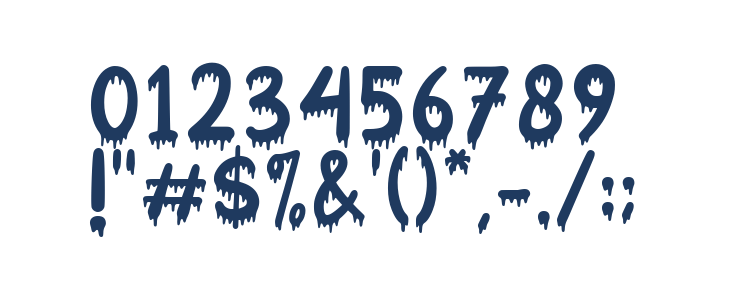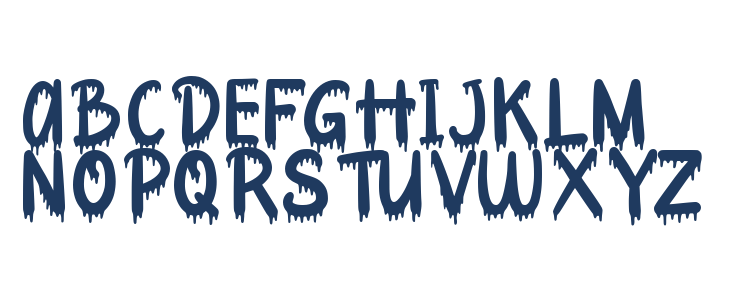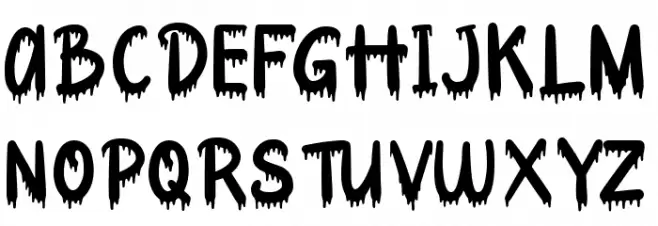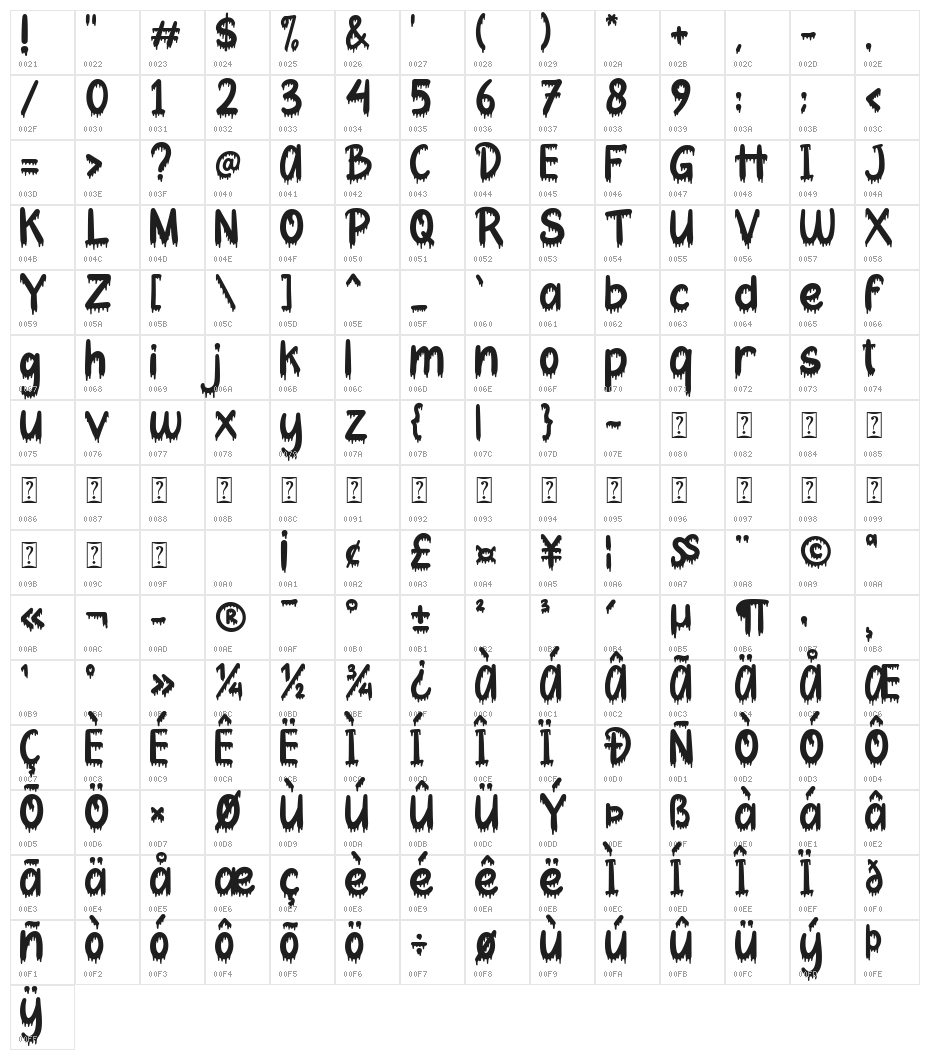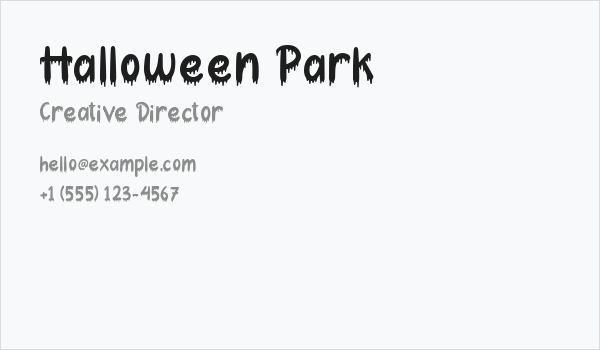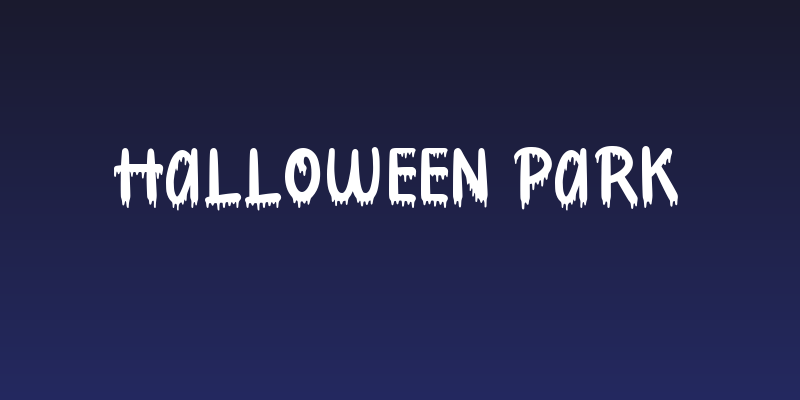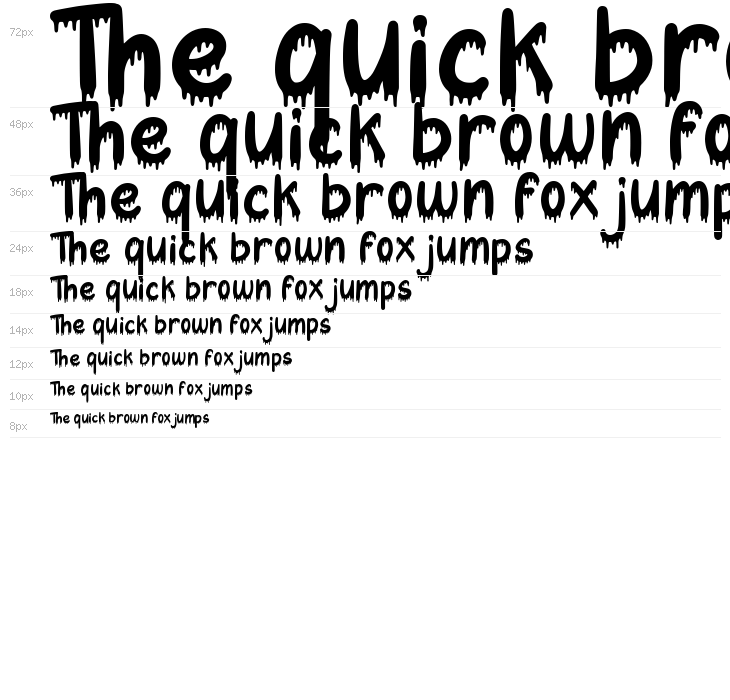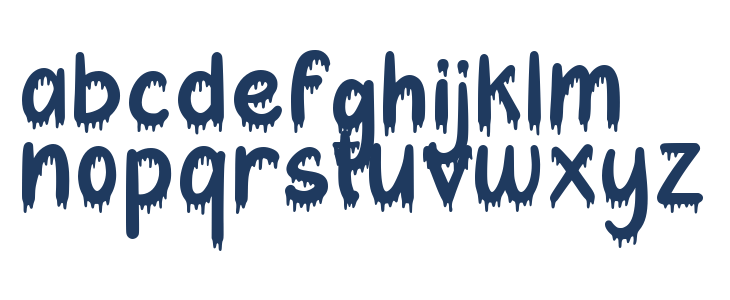
Halloween Park Font
Halloween Park Description
A playful, decorative font with dripping effects on each character, evoking a spooky, gooey, or horror-themed aesthetic. The letterforms are bold and rounded, with irregular edges and pronounced 'drips' extending downward from the baseline and other points.
| Overall Style | Decorative, Spooky, Playful |
| Use Case | Headlines, Posters, Event Flyers, Themed Logos |
| Proposed Projects | Halloween party invitations, haunted house posters, horror movie titles, themed event signage, seasonal packaging. |